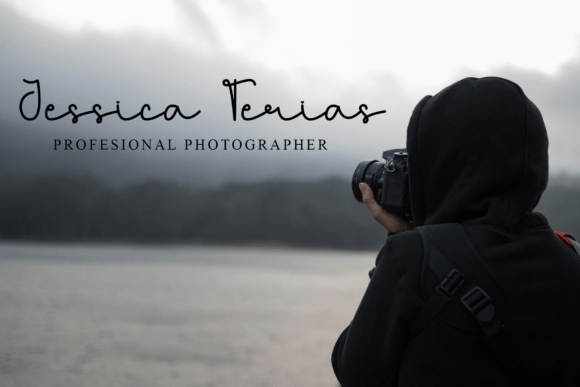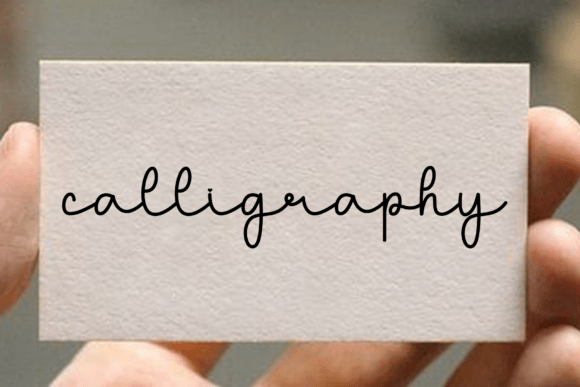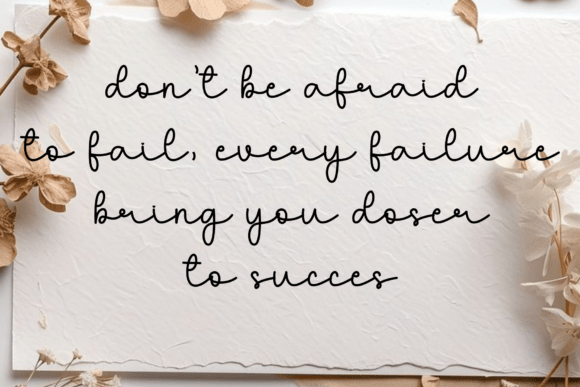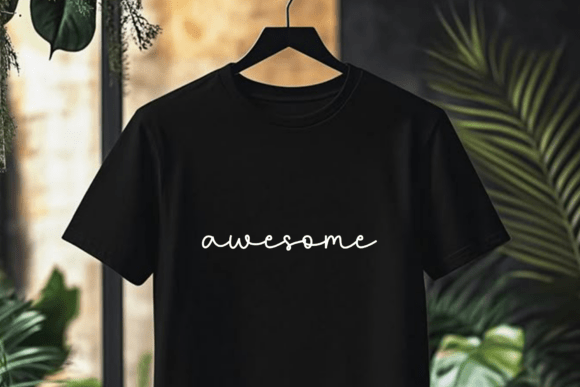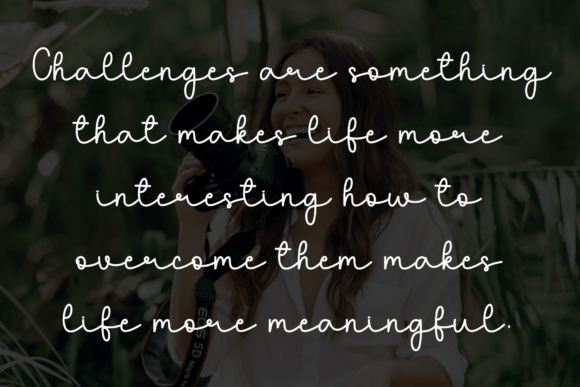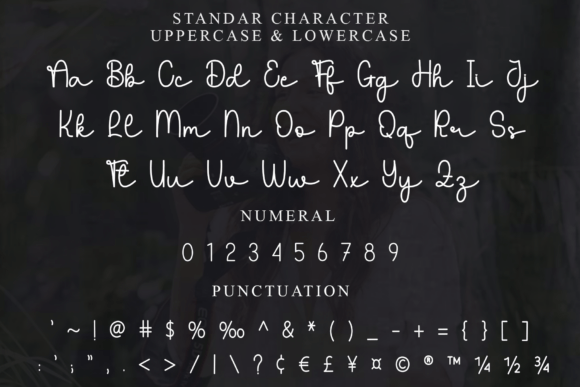
Introduction to Photoshoot Font
Photoshoot is a casual and creative font that exudes warmth and friendliness.
Key Features of Photoshoot Font
Why Choose Photoshoot Font?